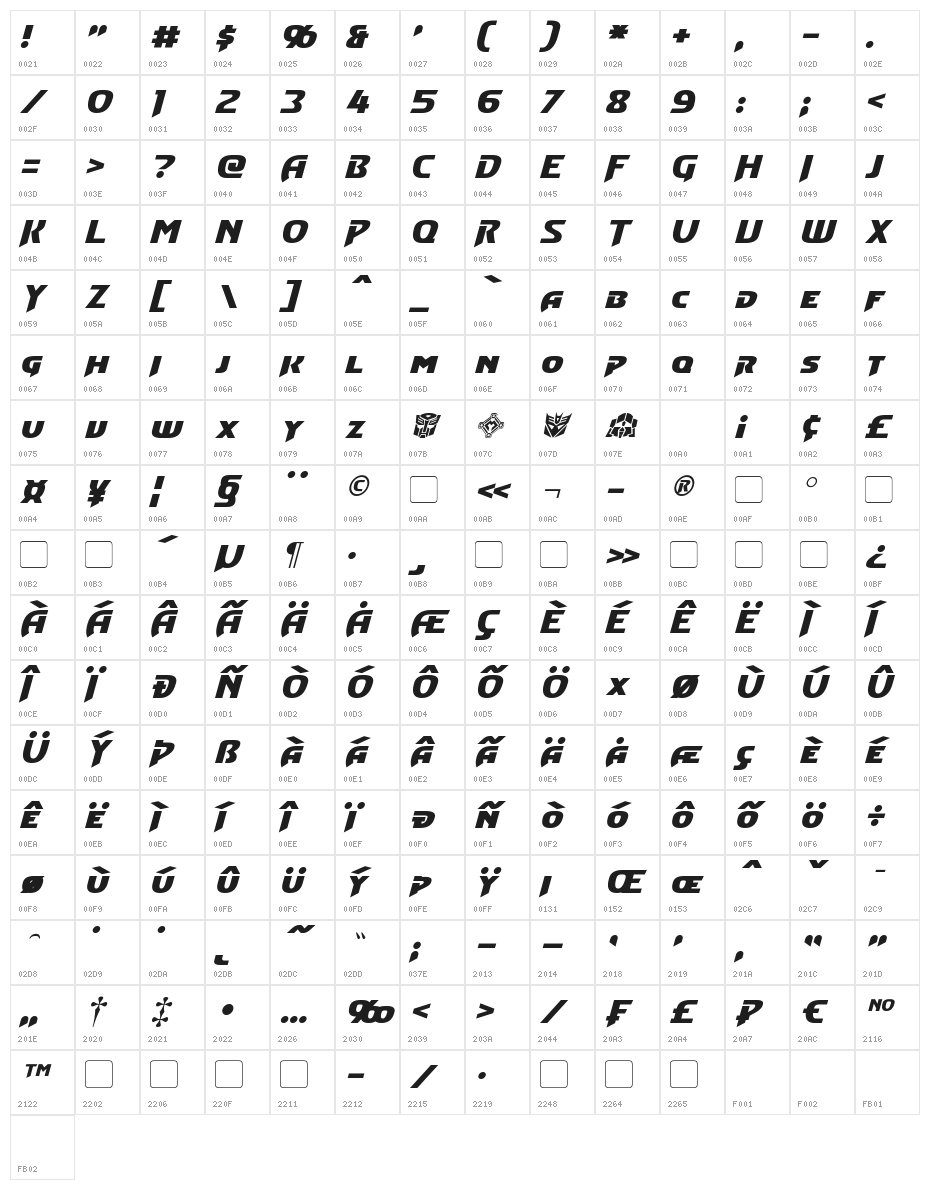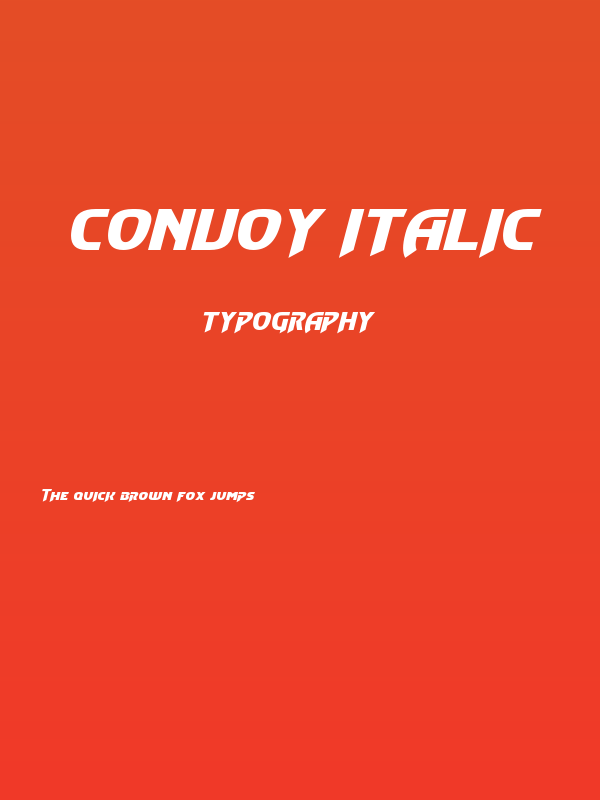
Convoy Italic Font
Convoy Italic Description
This font features a bold, italicized style with sharp, angular edges and a dynamic forward slant. The characters are designed with a strong, impactful presence, making them ideal for attention-grabbing headlines. The uppercase and lowercase letters maintain a consistent style, with the lowercase slightly smaller but equally bold. Numbers and special characters follow the same design principles, ensuring uniformity across all glyphs. The font's aggressive and modern aesthetic is suitable for projects that require a strong visual impact.